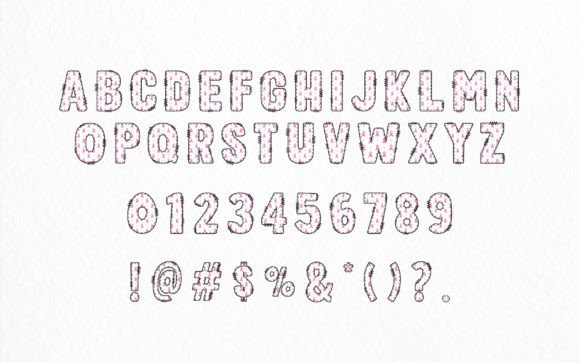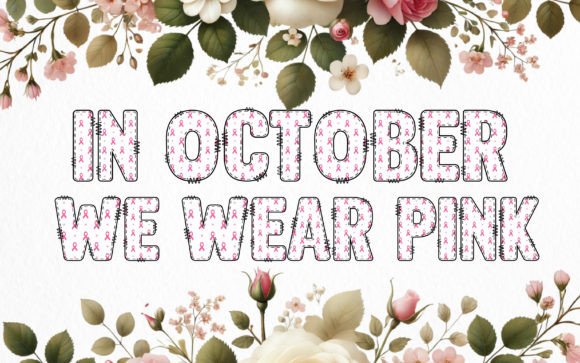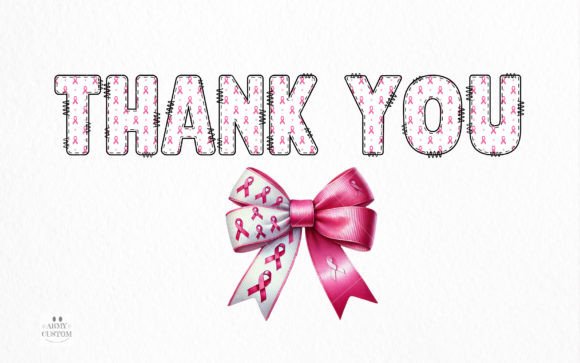
Introduction to Pink Ribbon Army4 Font
As a designer, there’s nothing quite like the thrill of bringing a creative project to life. You’ve spent hours brainstorming, sketching, and perfecting the details, and finally, it’s time to see your vision take shape. But what about those special projects that require a little extra heart and soul? For designers who want to make a meaningful impact, the Pink Ribbon Army4 Font is a powerful design resource that’s sure to inspire.
This stunning font is more than just a pretty face – it’s a symbol of solidarity and support for those affected by breast cancer. The repeating pattern of pink ribbons woven throughout each letter is a beautiful reminder of the importance of awareness and community. With its high-quality design and transparent background, the Pink Ribbon Army4 Font is the perfect addition to any project that needs a touch of compassion and care.
Key Features of Pink Ribbon Army4 Font
- High-quality design resource for creative projects, suitable for various design applications.
- Transparent background, allowing for seamless integration with any design element.
- Pixel-perfect resolution at 300 DPI, guaranteeing crisp and clear typography in print and digital applications.
- Part of the Pink Ribbon Army4 Font family, offering a cohesive and consistent design language.
- Supports various languages, making it a versatile design resource for global projects.
Honest Review: Pink Ribbon Army4 Font
I recently stumbled upon the Pink Ribbon Army4 Font and I must say, I’m quite impressed. As a designer, I’m always on the lookout for high-quality design resources that can elevate my creative projects. This font is definitely a great find.
What works well: ✨ The Pink Ribbon Army4 Font has a beautiful, modern design that’s perfect for a variety of projects, from branding to packaging. The font is highly legible and the bold weights are ideal for headings and titles. I also appreciate the transparent background, which makes it easy to use in any design context.
What doesn’t work well: ⚠️ While the font is free to download, it’s not as versatile as some other fonts I’ve used in the past. The font is limited to a specific style, which may not be suitable for all types of projects. Additionally, some of the characters may not display correctly in certain software or operating systems.
Overall, I’m happy to recommend the Pink Ribbon Army4 Font for any designer looking for a high-quality, free download to enhance their creative project. Just be aware of its limitations and make sure it’s suitable for your specific needs.
- High-quality, modern design
- Perfect for branding, packaging, and titles
The Pink Ribbon Army4 Font is a high-quality design resource ideal for creative projects. Its transparent background makes it perfect for overlaying on images or using as a standalone element.
Experiment with different font sizes, colors, and styles to get the most out of the Pink Ribbon Army4 Font. You can also use it in combination with other design elements to create a unique look.
The Pink Ribbon Army4 Font is ideal for social media posts, presentations, reports, documents, and other creative projects where a unique font is needed. Its transparent background makes it perfect for overlaying on images or using as a standalone element.